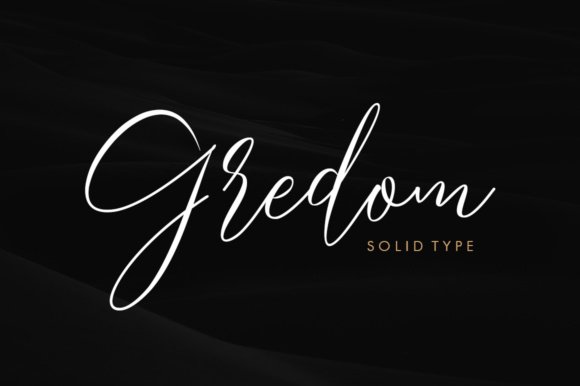
The Art of Crafting Beautiful Words
Have you ever sat down with a blank page and a blank mind, trying to conjure up the perfect phrase to capture the essence of your latest creative project? It’s a feeling we’ve all experienced, and it’s what drives us to find the perfect font to bring our words to life.
For designers and creatives, the search for the perfect font can be a long and arduous one. But what if you stumbled upon a font that was both elegant and effortless? Enter the Gredom Script Font, a gorgeous and simple handwritten script that’s perfect for adding a touch of sophistication to your next project.
With its contemporary and fashionable feel, the Gredom Script Font is a valuable addition to any designer’s toolkit. Whether you’re looking to create a stunning headline or a beautiful body text, this font is sure to impress.
Gredom Script Font Key Features
- Unique Characteristics: This script font features elegant, flowing lines and a vintage feel, making it perfect for creative projects, invitations, and watercolor-inspired designs.
Gredom Script Font Review
I’ve had the chance to work with the Gredom Script font, and I must say it’s a beautiful script font that’s perfect for adding a touch of elegance to your designs. ✨ The font’s flowing curves and connected letterforms make it a great choice for invitations, wedding stationery, and other formal designs.
Here are some of the things that I think work well with the Gredom Script font:
- ✨ Elegant and sophisticated feel
- ✨ Perfect for formal and high-end designs
- ✨ Beautiful flowing curves and connected letterforms
- ⚠️ May not be suitable for digital use due to its connected letterforms
- ⚠️ Can be difficult to read in smaller font sizes
- ⚠️ May require additional design elements to make it stand out
Overall, I think the Gredom Script font is a great addition to any designer’s toolkit. While it may have some limitations, its elegant and sophisticated feel makes it a great choice for formal and high-end designs. With a little creativity and attention to detail, you can create some truly stunning designs with this font.
Getting the Most Out of Gredom Script Font
To get the most out of Gredom Script Font, try:
- Using it in combination with other elegant fonts for a sophisticated look.
- Adjusting the font size and color to create visual interest.
- Using it in headings and titles to add a touch of elegance.
Gredom Script Font is perfect for:
- Wedding decorations and signage.
Alternatives to Gredom Script Font for Designers
Carolyna Pro is a modern script font designed by Carolyna Dresser. It is ideal for use in invitations, branding, and editorial content where a sophisticated and elegant feel is desired. Carolyna Pro features a flowing and connected script style that makes it perfect for handwritten text.
Comparison to Gredom Script Font: Carolyna Pro has a more refined and polished look compared to Gredom Script Font, which makes it suitable for high-end projects. While Gredom Script Font has a more casual and relaxed feel, Carolyna Pro is better suited for formal and professional applications.
Alex Brush is a beautiful script font designed by Laura Worthington. It is perfect for use in creative projects such as book covers, magazines, and websites where a touch of elegance and sophistication is required. Alex Brush features a flowing and connected script style with a natural, handwritten feel.
Comparison to Gredom Script Font: Alex Brush has a more traditional and classic look compared to Gredom Script Font, which makes it suitable for projects that require a timeless and sophisticated feel. While Gredom Script Font has a more modern and trendy feel, Alex Brush is better suited for projects that require a more traditional and elegant look.